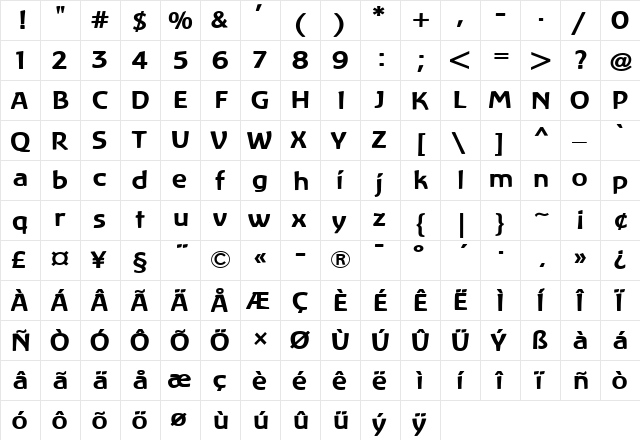
LinotypeAtlantis Bold Bold
Design Context for LinotypeAtlantis Bold Typeface
LinotypeAtlantis Bold takes a measured approach to typography — its balanced proportions and neutral character make it a reliable workhorse for both digital and print work. The heavy weight commands attention and anchors typographic hierarchies.